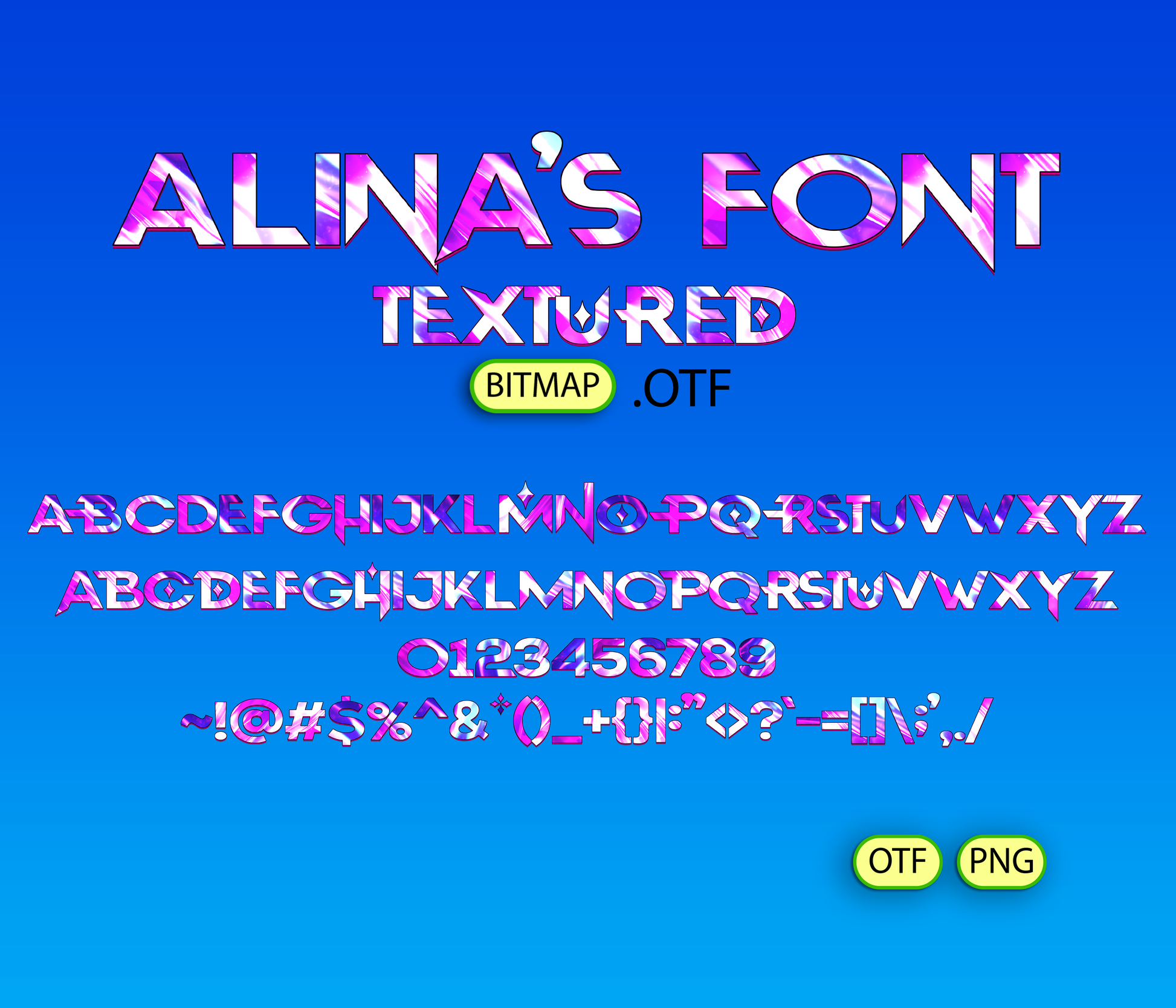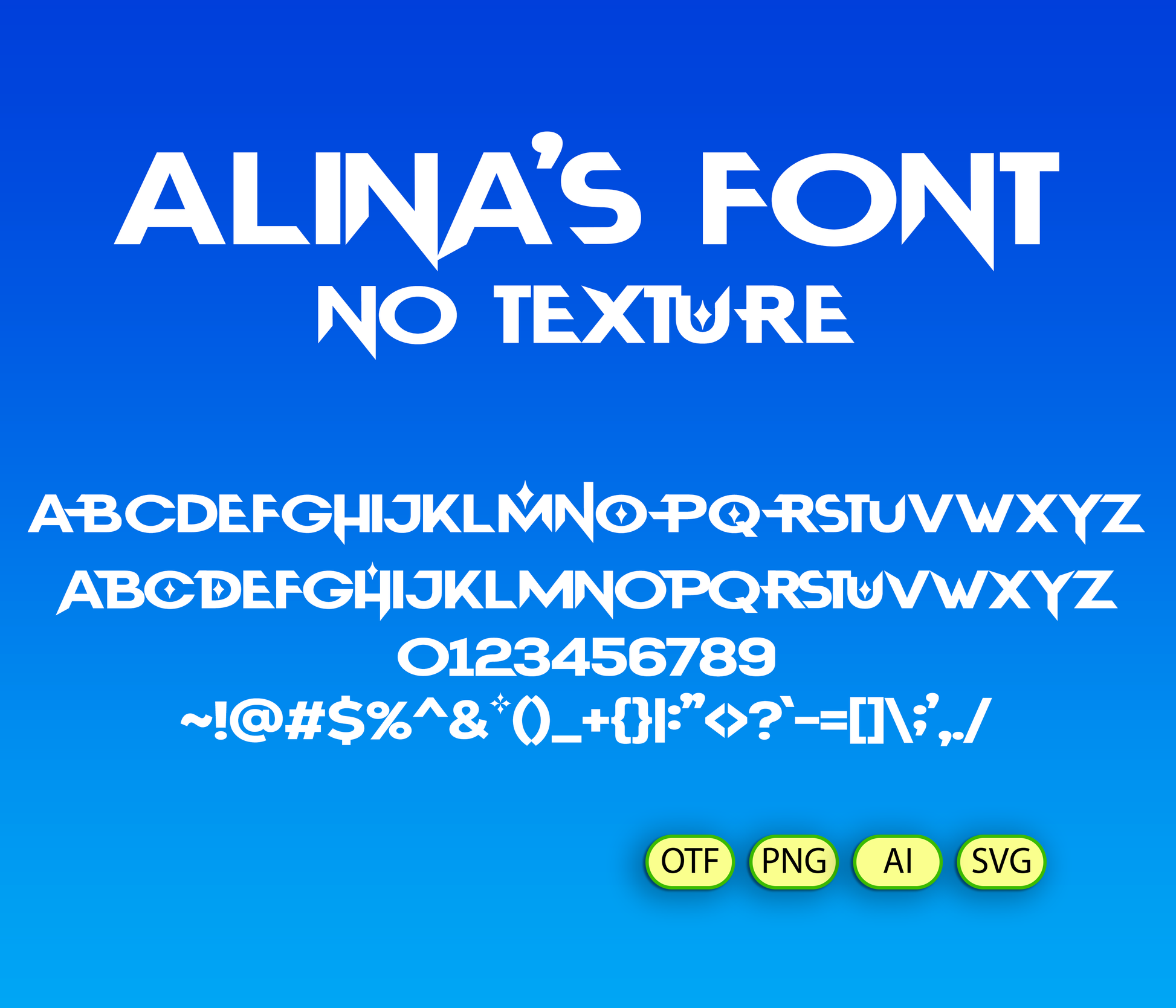
Idol Exorcists Font Textured
Step into the thrilling world of musical spirit fighters with our Idol Exorcists font, capturing the essence of performing warriors and supernatural protectors. Perfect for K-pop enthusiasts, fantasy creators, event organizers, and designers, this font brings the vibrant, fierce spirit of melody guardians to your projects. Create electrifying materials, merchandise, or digital content with the captivating energy of rhythm defenders.
Our Idol Exorcists font features sharp, contemporary lines and stylish characters reflecting the world of entertainment warriors. Ideal for:
- Event Promotions: Create dazzling invites, posters, and banners for music events, fan gatherings, and themed parties that capture the spirit of performing protectors
- Merchandise Design: Perfect for t-shirts, posters, and accessories that showcase the striking aesthetic of melody hunters and supernatural fighters
- Digital Media: Enhance websites, blogs, and social media with energetic headers and graphics that express the power of rhythm warriors
- Entertainment Content: Add authentic flair to fan art, music projects, and creative designs inspired by supernatural slayer stories
- Personal Projects: Bring dynamic excitement to scrapbooking, DIY crafts, and home decor inspired by the world of performing defenders
Our font pays tribute to the iconic world of musical warriors, empowering your designs with its vibrant and fierce spirit. Whether crafting promotional materials, designing merchandise, or adding an energetic touch to personal projects, this font communicates the bold essence of performing protectors. Ready to inject rhythmic power into your creations? This font is your key to exciting, impactful design.